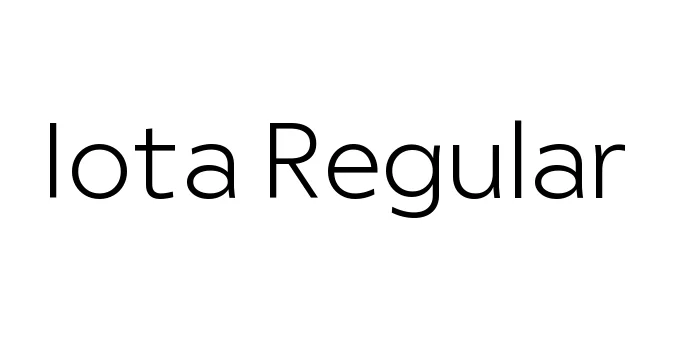
Iota Regular
Designed by Niteesh Yadav (Indian Type Foundry)
| Category | Geometric Sans Serif |
| Designer | Niteesh Yadav (Indian Type Foundry) |
Iota Regular is a contemporary geometric sans-serif typeface designed to bridge the gap between technical precision and humanistic warmth. Developed by the Indian Type Foundry, it features a clean, architectural structure with wide apertures and consistent stroke weights, making it exceptionally legible even at smaller sizes. The font's design philosophy focuses on minimalist clarity, stripping away unnecessary flourishes to provide a versatile tool for modern digital and print environments.
Throughout its development, Iota was optimized for screen performance, ensuring that its geometric curves remain smooth and distinct on high-resolution displays. Its neutral yet friendly character allows it to adapt to a variety of visual identities, from corporate branding to editorial layouts. Whether used in a professional report or a creative portfolio, Iota Regular maintains a sophisticated balance of form and function that appeals to designers seeking a reliable, modern aesthetic.
Iota Regular Best Uses
Clean navigation and body text for modern websites.
Professional and minimalist logo designs for tech companies.
Highly legible labels and menus in mobile applications.
Clear and concise headings for magazine layouts and reports.